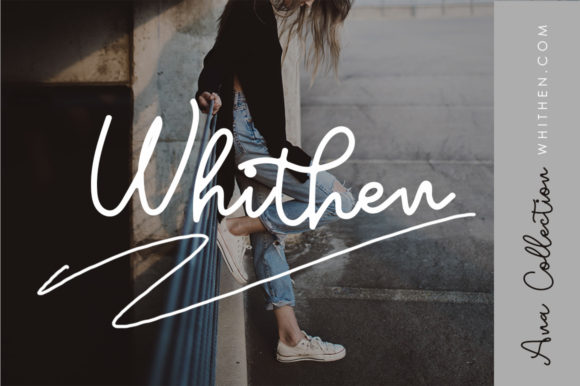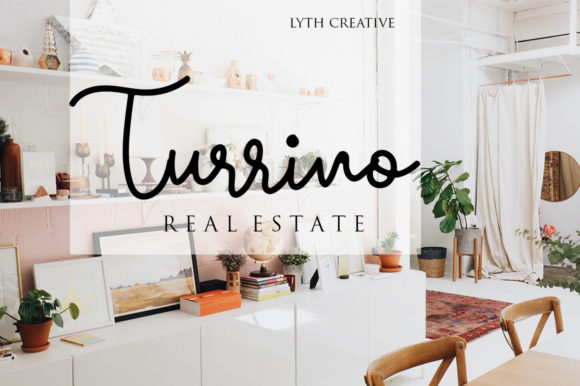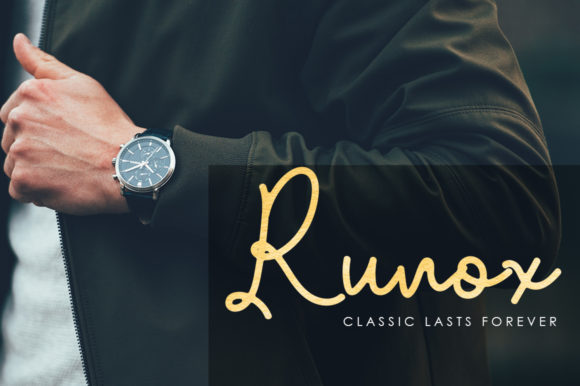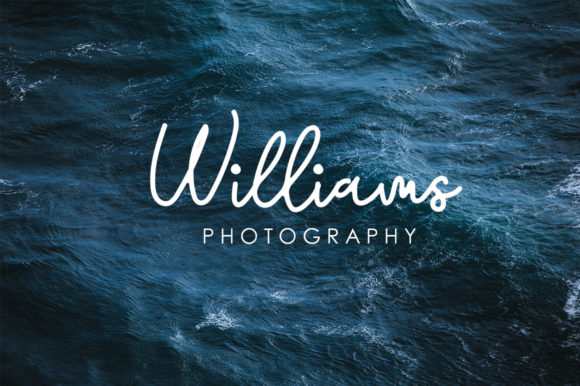
Introduction to Emerttons Font
Emerttons is a beautiful, sweet and delicate handwritten font with a graceful charm.
It will put a unique touch on any creative project .
Key Features of Emerttons Font
Why Choose Emerttons Font?
Emerttons Font offers exceptional quality and versatility, making it a valuable addition to your design toolkit. Whether you’re creating for personal projects or commercial use, Emerttons Font delivers professional results.